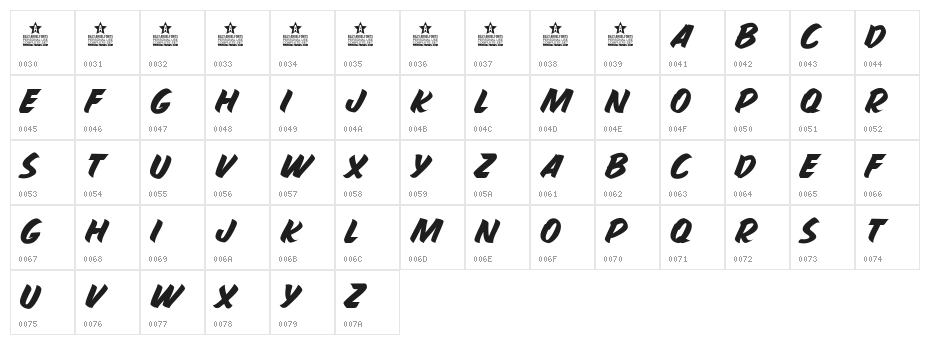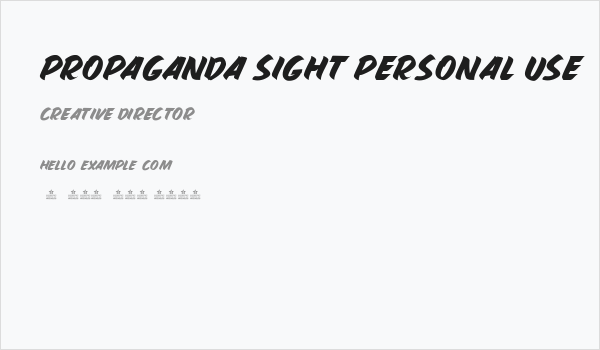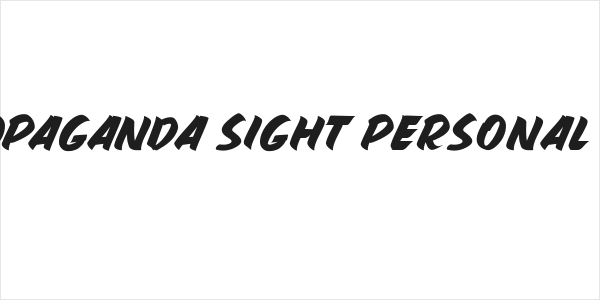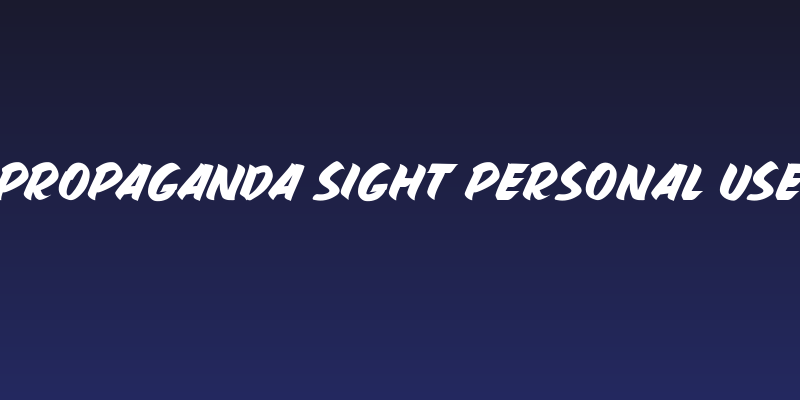
PROPAGANDA SIGHT PERSONAL USE Font
PROPAGANDA SIGHT PERSONAL USE Description
This font features bold, dynamic strokes with a strong, energetic presence. The characters are slightly slanted, giving a sense of movement and urgency. The design is reminiscent of graffiti or street art, with sharp angles and a modern flair. The uppercase letters are particularly striking, with a consistent thickness that adds to the font's boldness. The lowercase letters maintain the same energetic style, ensuring a cohesive look across different text cases. This font is ideal for making a statement, with its eye-catching and assertive appearance.